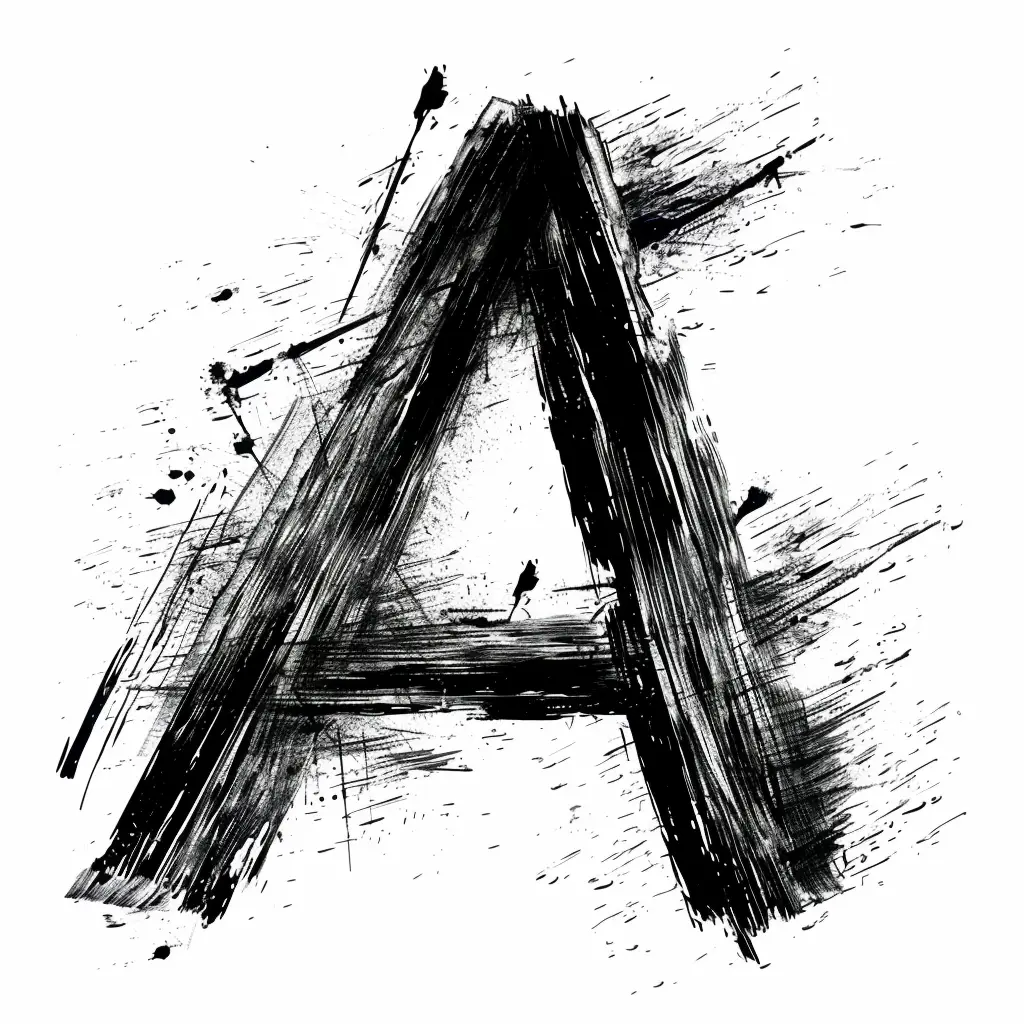
The image features a bold, stylized letter "A" rendered in a rough, brushstroke-like black ink style against a white background. The letter is characterized by uneven, textured strokes with splatters and scattered lines, creating a dynamic, artistic effect. A small silhouette of a bird is visible within the negative space of the "A," adding a subtle focal point to the composition.